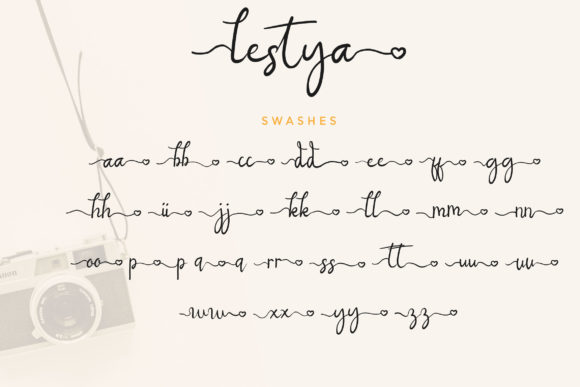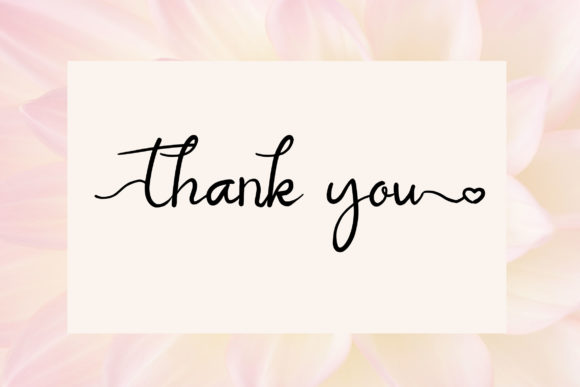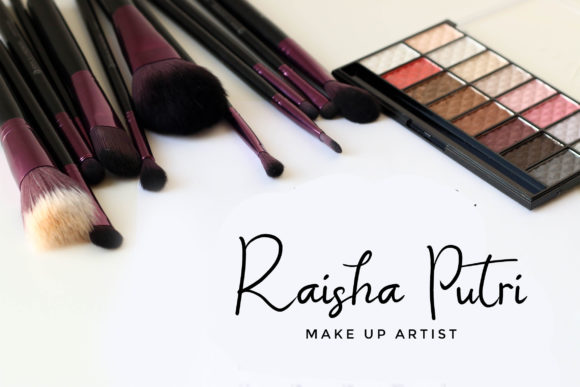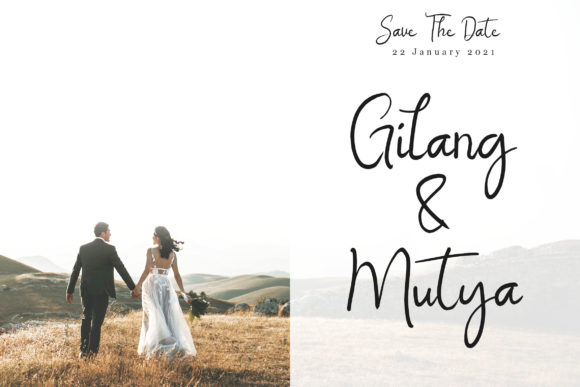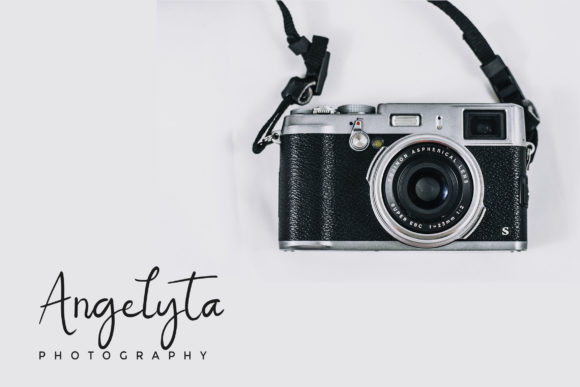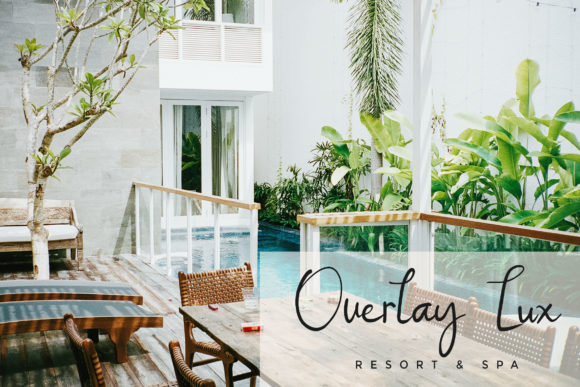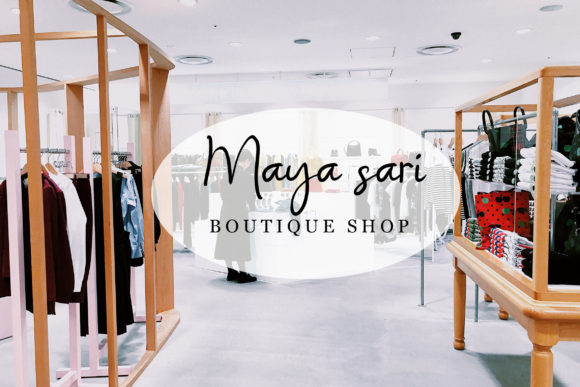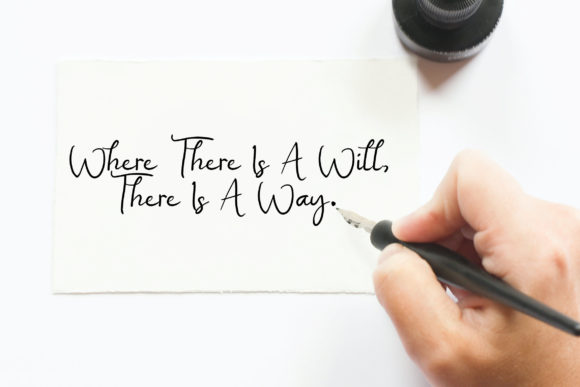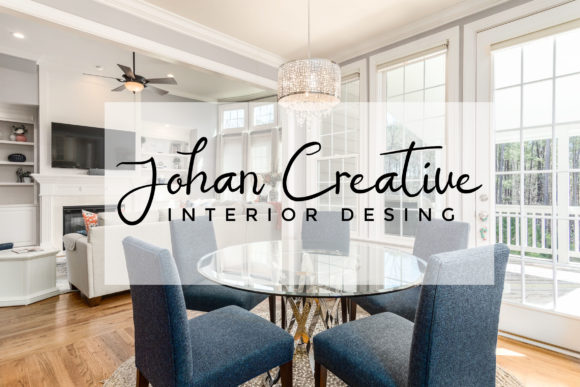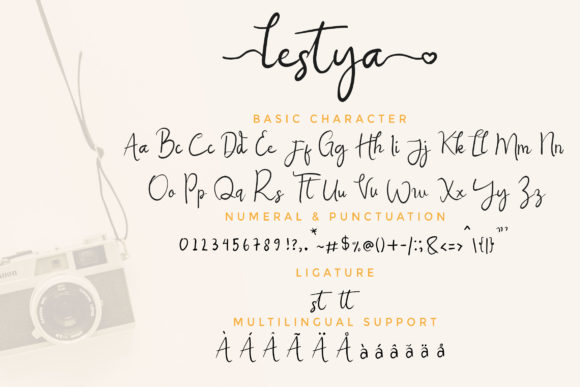
Lestya Font
About Lestya Font
Lestya is a magical script font that captures the essence of elegance and beauty. With its carefully crafted letterforms and graceful curves, it adds a touch of enchantment to any design project. Whether you’re creating social media graphics, crafting personalized invitations, or working on DIY projects, Lestya will elevate your creative ideas and transform them into true works of art.
The font’s exquisite details and flowing lines make it a perfect choice for various purposes. Its versatility allows it to be used in a wide range of designs, from branding materials and logo designs to wedding invitations and quotes. Lestya brings a sense of sophistication and charm to each composition, making it stand out and leaving a lasting impression on viewers.
One of the notable features of Lestya is its extensive character set. With PUA encoding, you can easily access all the glyphs and swashes, enabling you to create unique and customized designs. The additional stylistic alternates and decorative elements give you the freedom to experiment and add your personal touch to your projects.
Furthermore, Lestya ensures legibility without compromising its enchanting appeal. The carefully balanced letterforms maintain clarity, allowing your message to be easily read and understood. This makes it suitable for a wide range of applications, including social media posts, quotes, and even larger-scale designs such as signage and banners.
The magical aura of Lestya adds a sense of wonder and elegance to any design it graces. Its versatility and exquisite details make it a valuable asset in your font collection. Whether you’re a designer, an artist, or a DIY enthusiast, Lestya will inspire creativity and bring your ideas to life.
In conclusion, Lestya is a magical script font that exudes elegance and charm. With its PUA encoding, you can access all the glyphs and swashes effortlessly, giving you the freedom to create stunning and personalized designs. Let your imagination soar and let Lestya add a touch of enchantment to your creative endeavors!